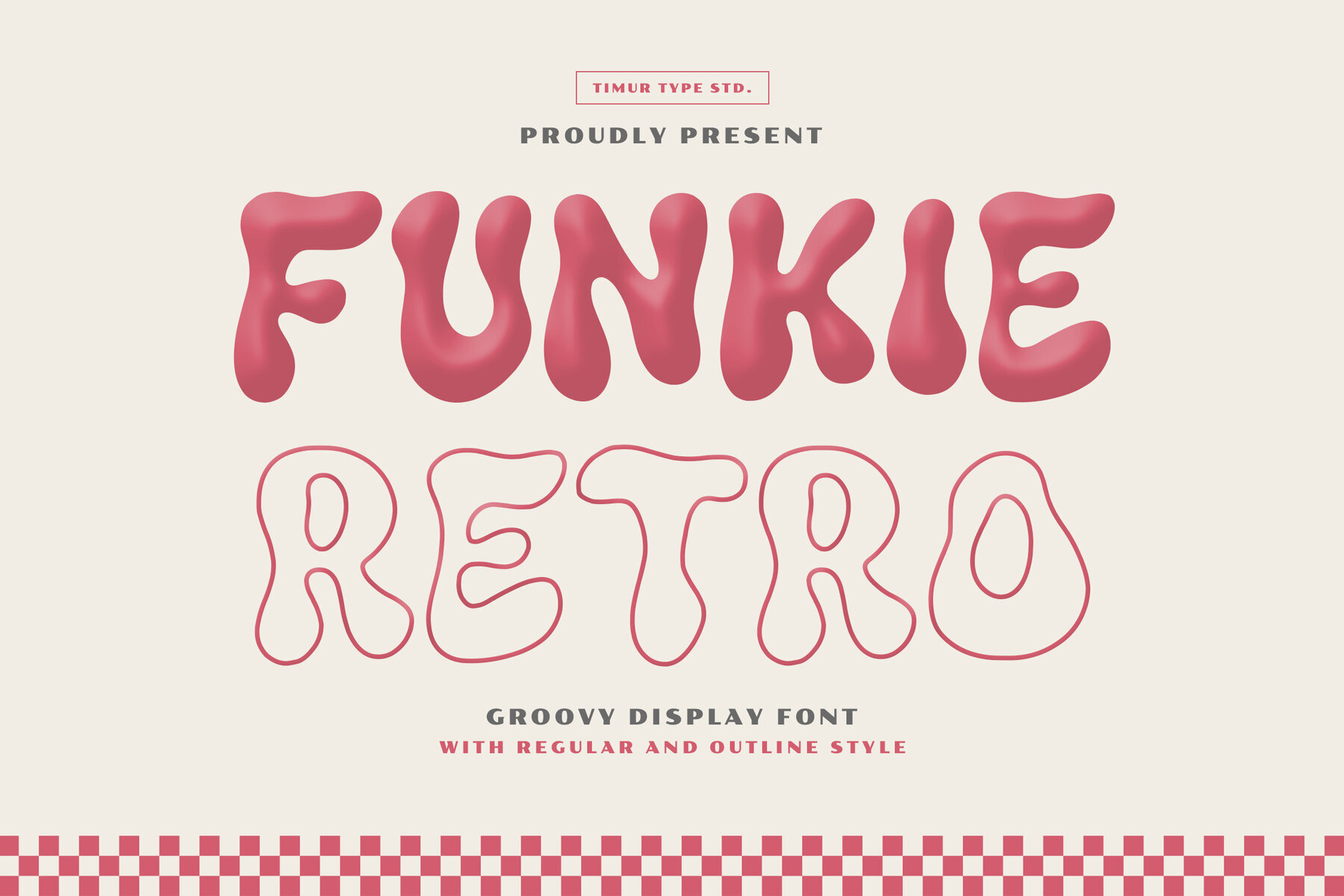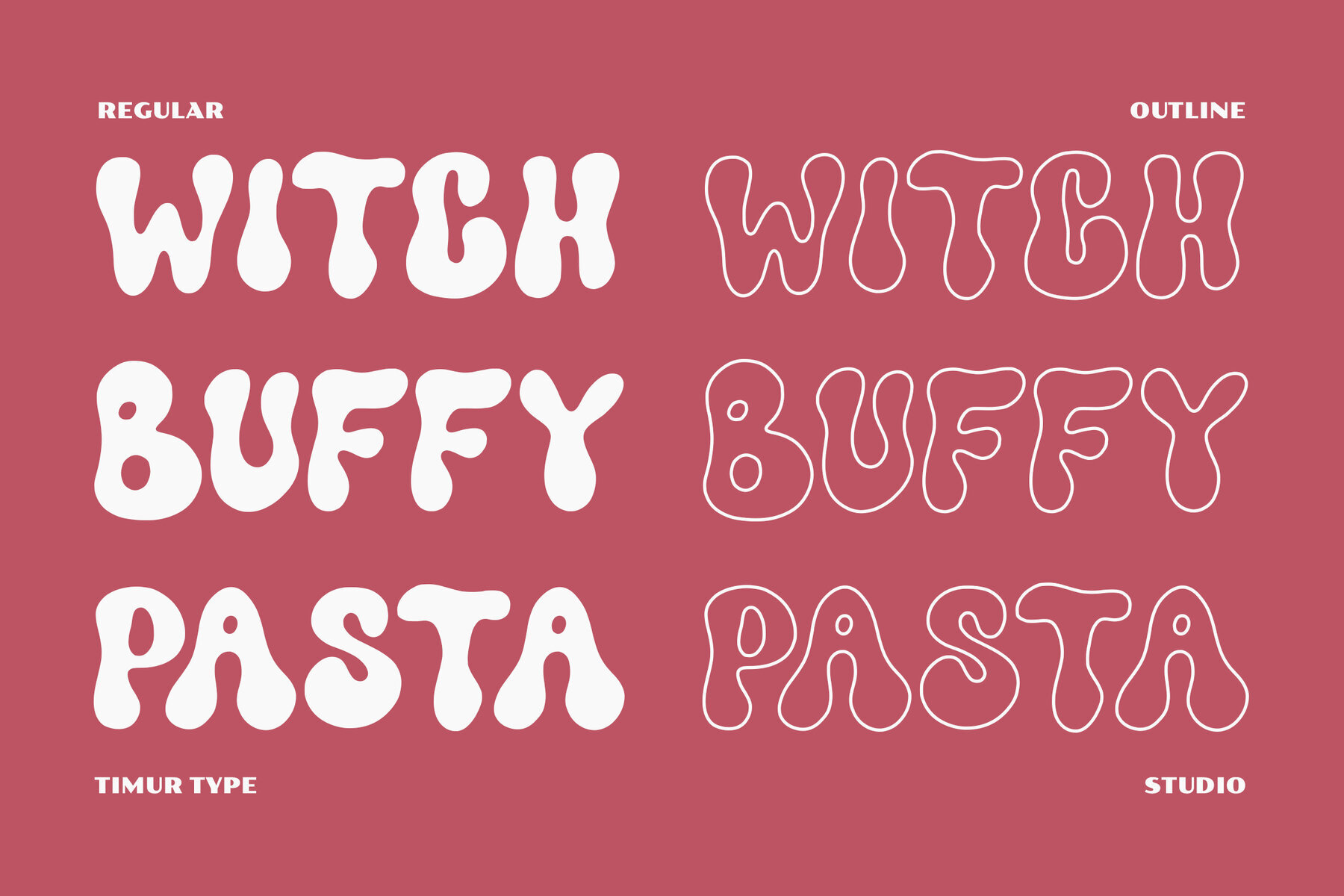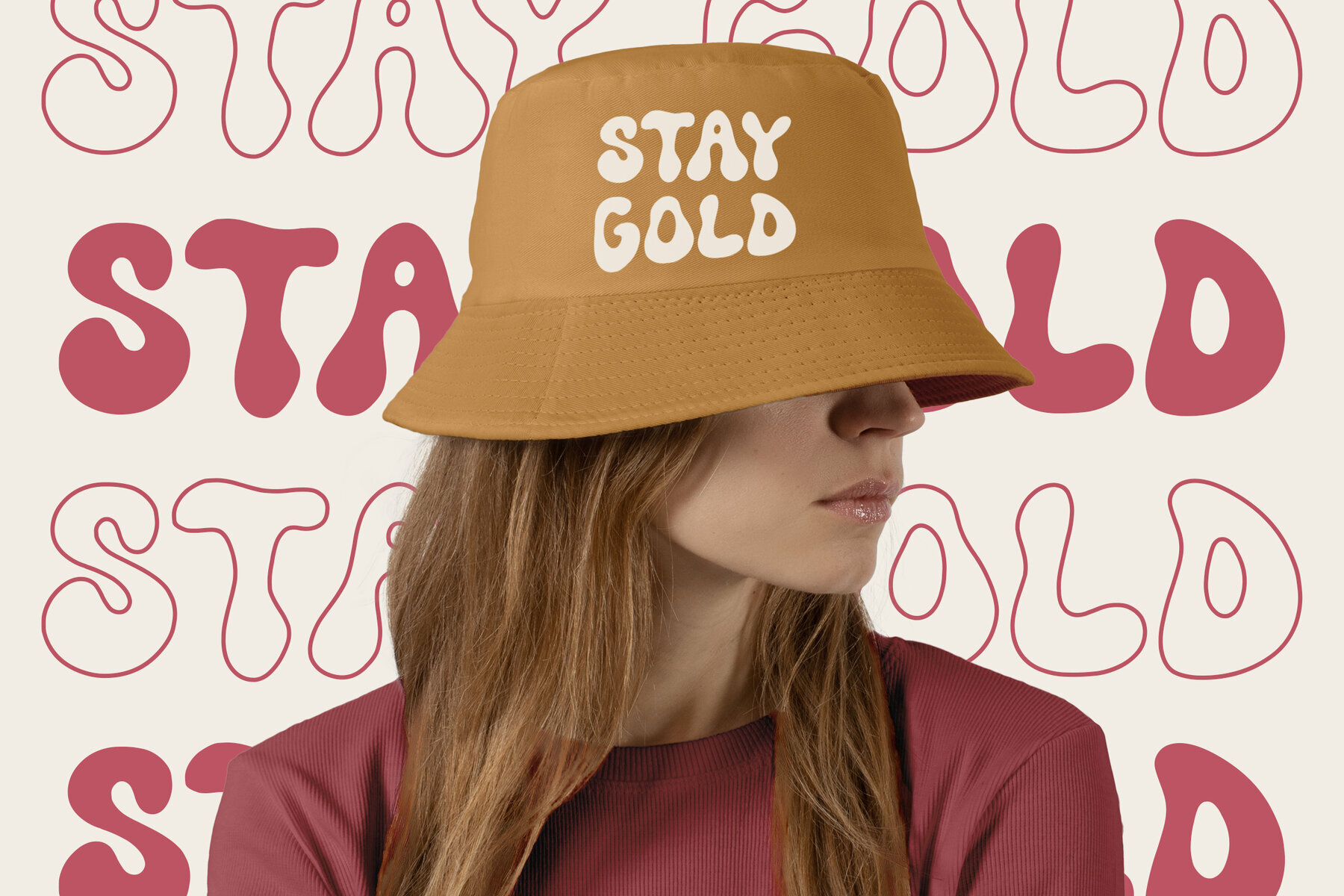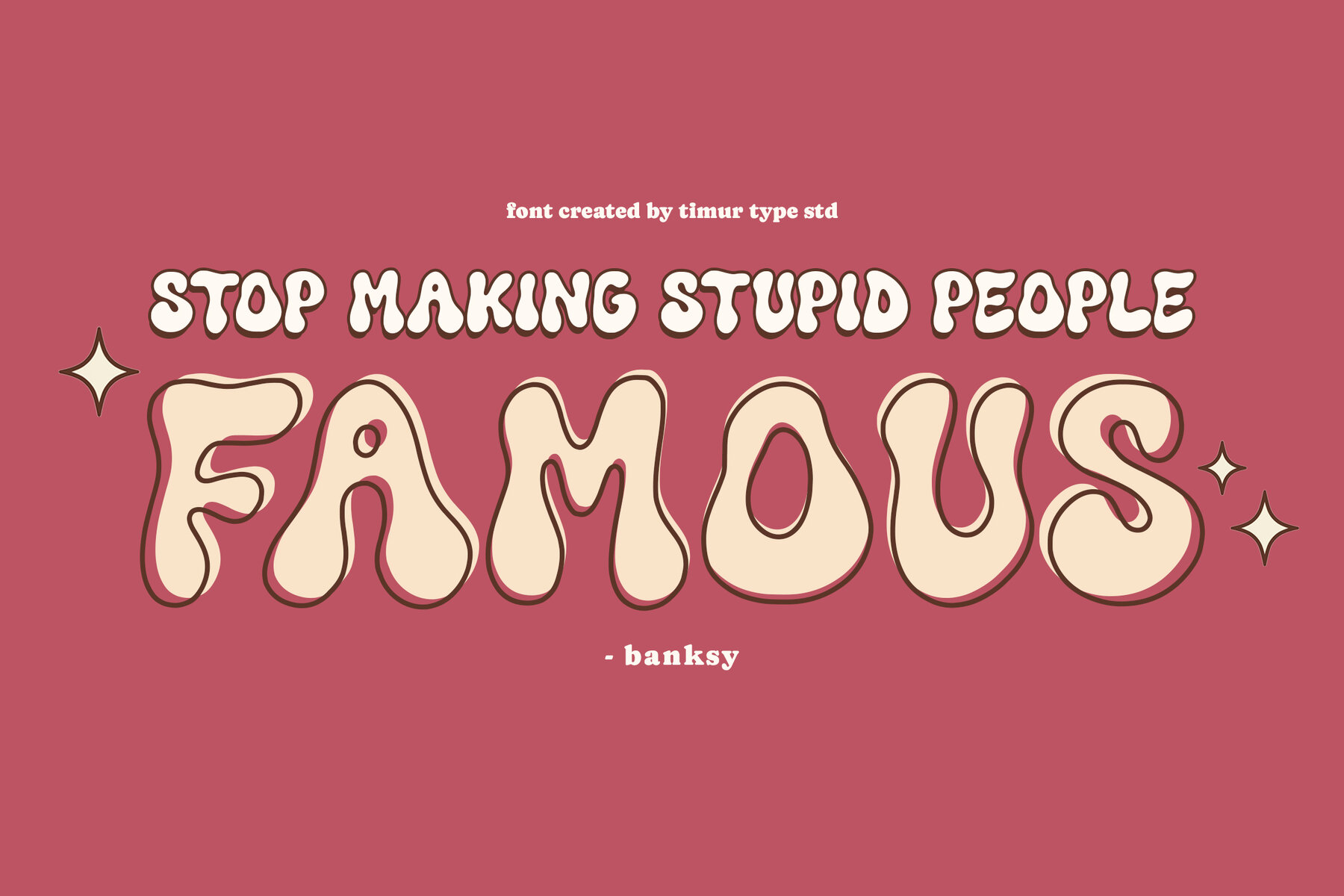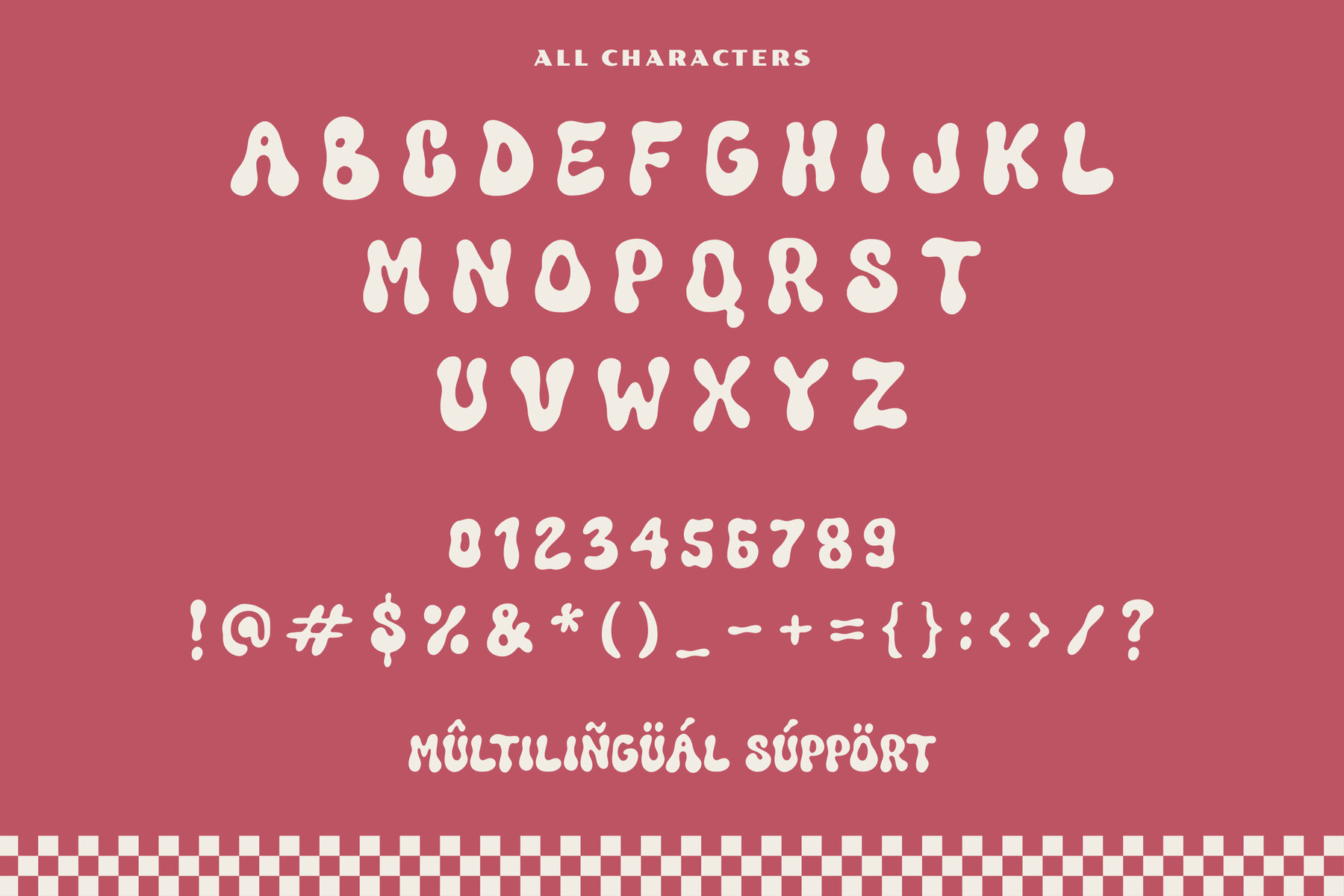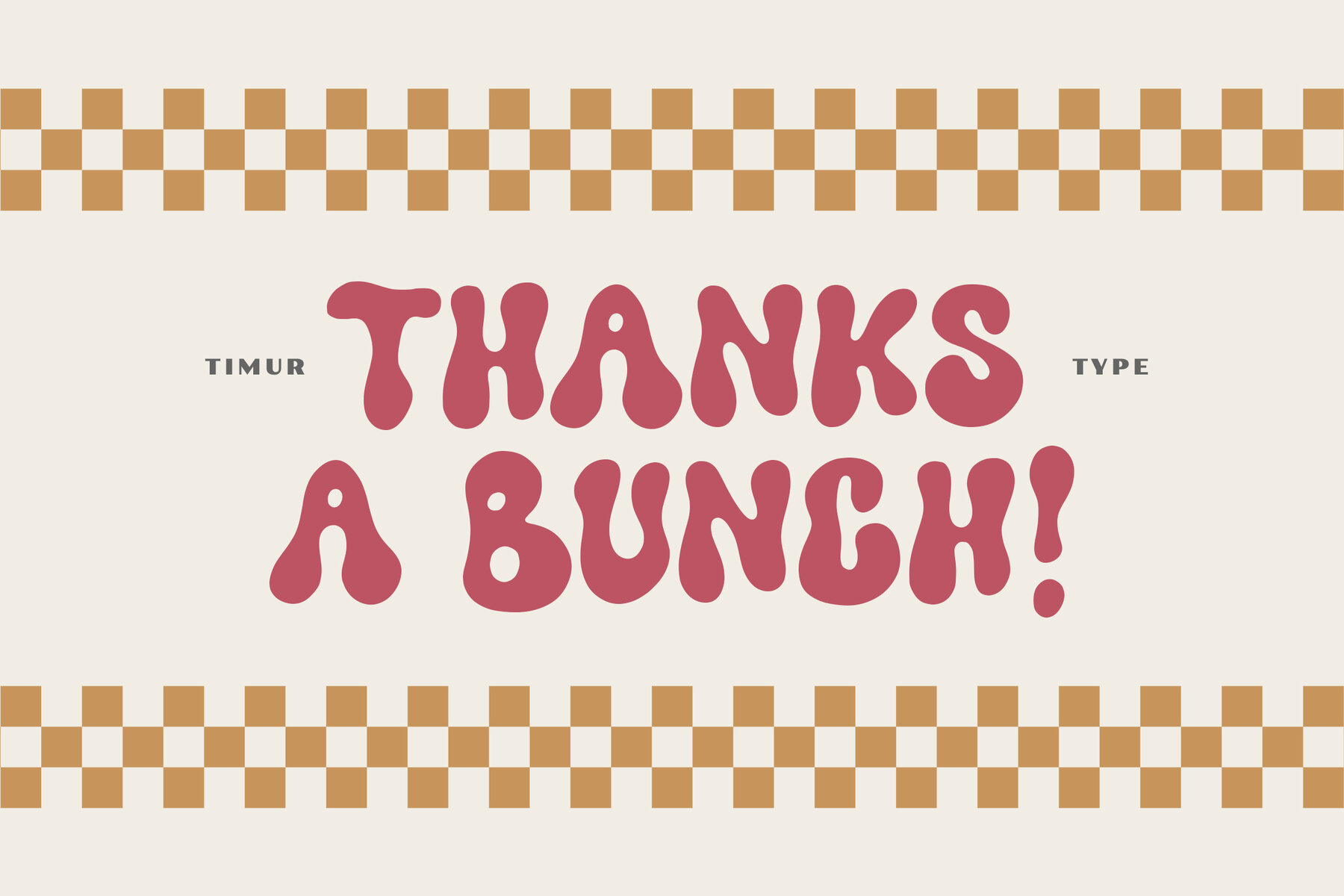
Funkie Retro Font
Funkie Retro is a handwritten display font that boasts smooth and unique edges, delivering a distinctive look reminiscent of handwriting. Its carefully crafted strokes bring an element of sophistication and style to any design it graces. Ideal for designers aiming to create eye-catching and memorable visuals, Funkie Retro's character is perfect for titles, logos, and more.
The font's striped, playful nature ensures standout appeal, making it an excellent choice for projects requiring notable emphasis. Whether for digital or print, incorporating Funkie Retro enhances the overall aesthetic with its artistic flair and attention to detail, ensuring your designs leave a lasting impression.